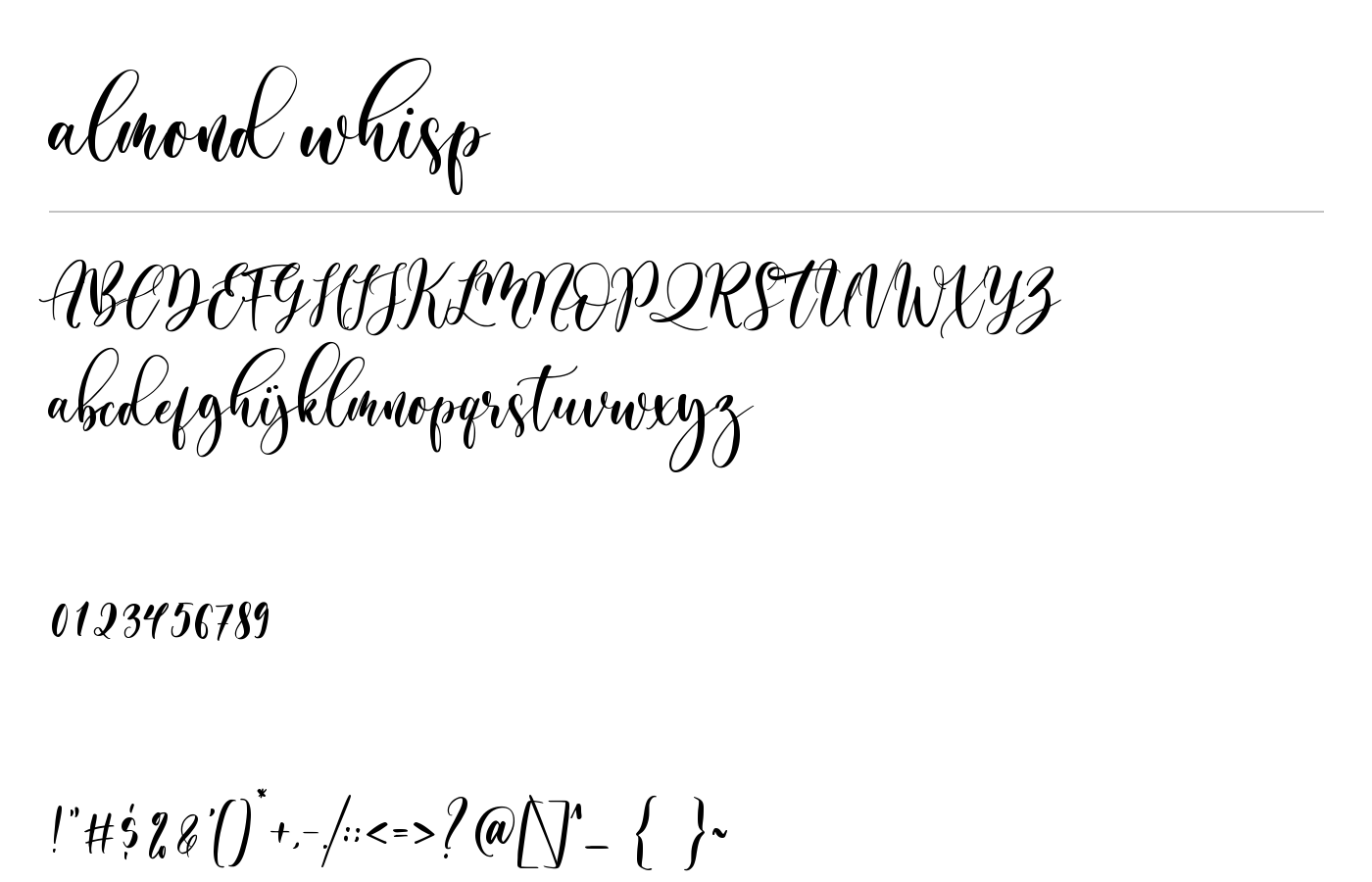
Almond Whisp is an elegant, flowing script font featuring delicate strokes that vary smoothly between thin and thicker lines, giving it a graceful, handcrafted feel. Its tall, narrow letterforms with playful swashes and loops convey a romantic and sophisticated personality, making it perfect for wedding invitations, luxury branding, and stylish editorial headlines. This font shines in designs that seek a touch of charm and refined beauty through its feminine and artistic flair.
almond whisp Font
About almond whisp Font